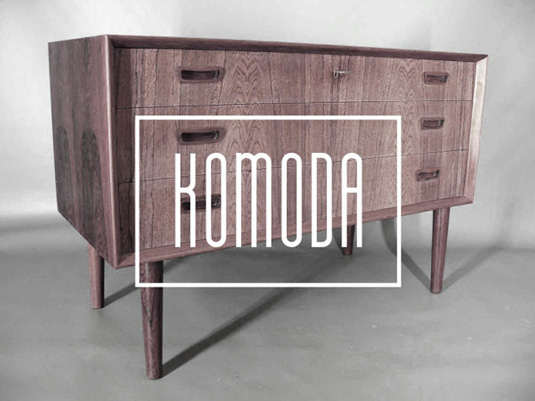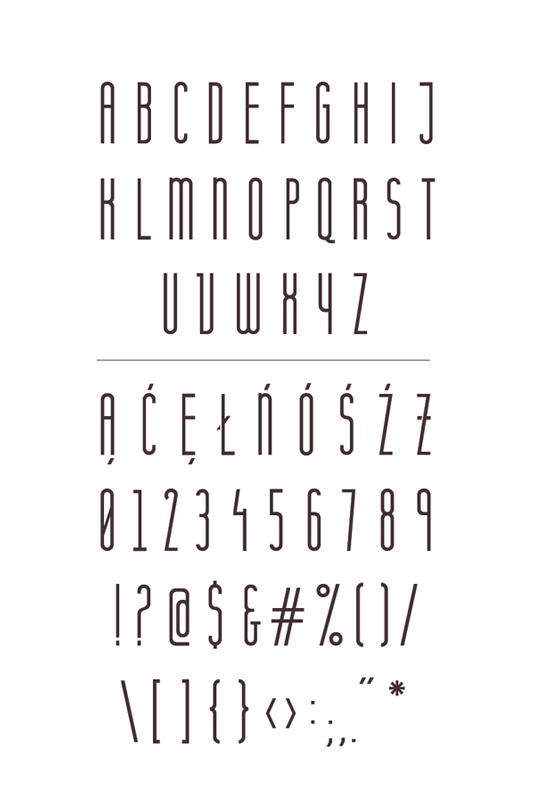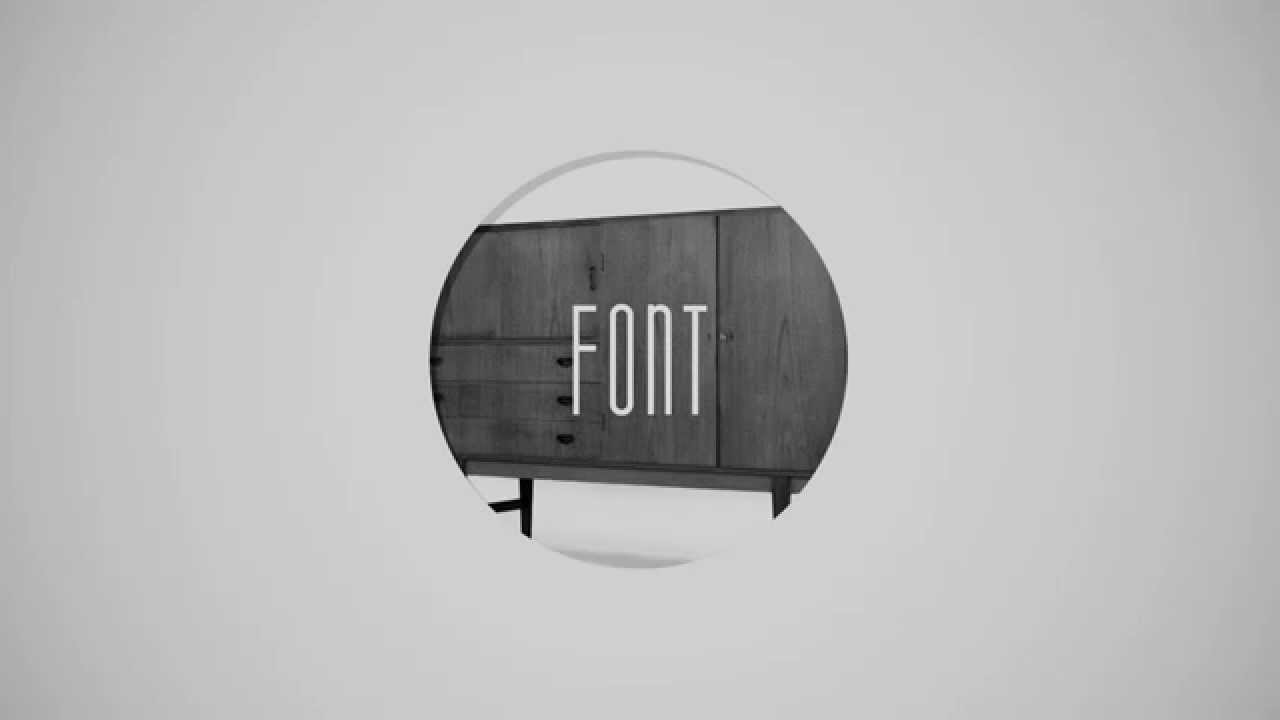
Font of the day: Komoda
Every day we showcase the best fonts on the web. Today it's Komoda by Joanna Angulska, which is free for personal and commercial use!
Komoda by Joanna Angulska
Today's font of choice is Komoda by Polish designer Joanna Angulska. "Komoda is a display, sans serif typeface suitable for headlines, editorial and poster design," she comments on Behance.